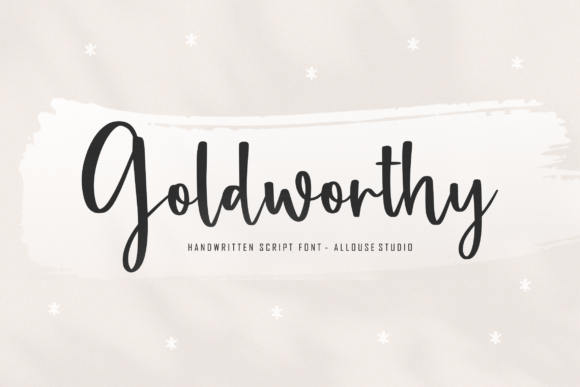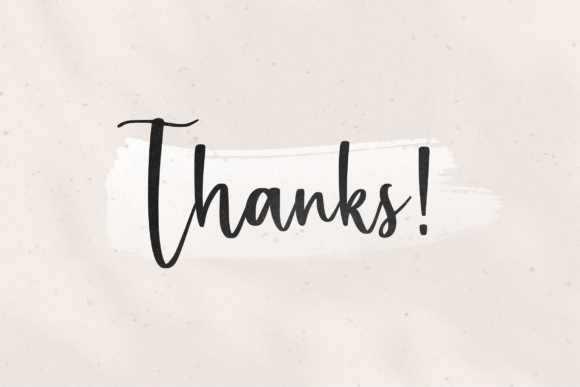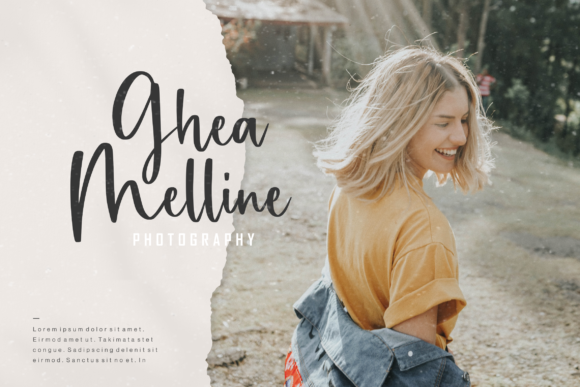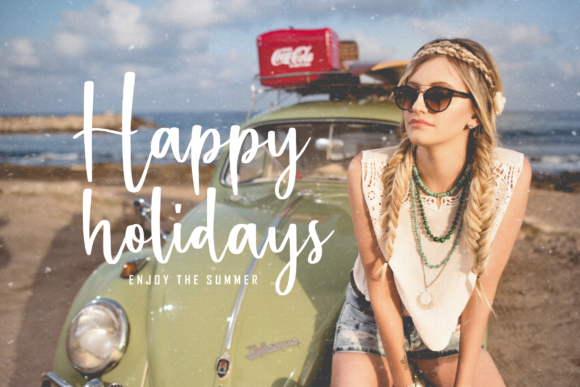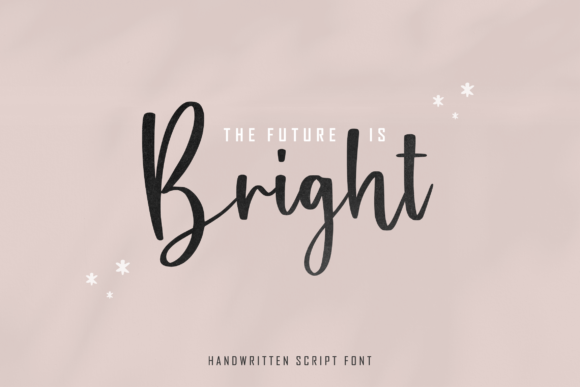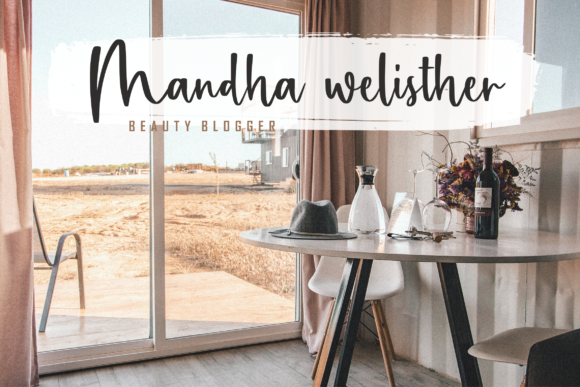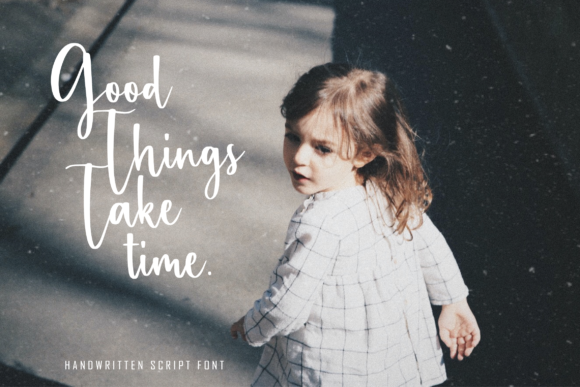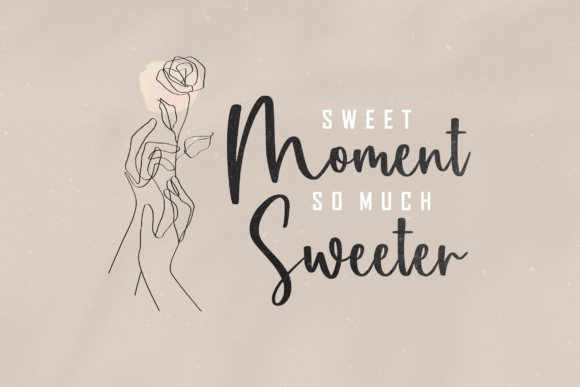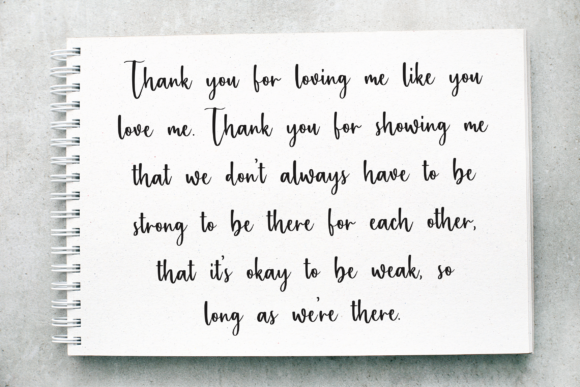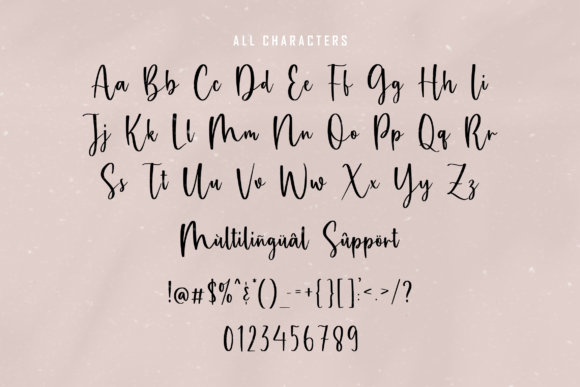
Goldworthy Font
**Goldsworthy** makes a statement as a modern handwritten script font, offering a natural, stylish, and versatile touch to any extraordinary project. Whether gracing wedding invitations, thank you cards, quotes, greeting cards, logos, business cards, or any design requiring a customized and distinctive feel, Goldsworthy brings a contemporary handwritten charm.
The natural and stylish appearance of Goldsworthy is a standout feature. Each character is crafted with a sense of authenticity, creating a font that feels both contemporary and approachable. This makes Goldsworthy well-suited for projects that aim to convey a modern and personalized aesthetic.
The versatility of Goldsworthy allows it to shine across a range of applications. From wedding invitations to thank you cards and logos, this font adapts seamlessly to various design contexts, adding a customized touch to each project. Its ability to enhance both formal and creative elements makes it a valuable asset for diverse creative endeavors.
The modern handwritten feel of Goldsworthy contributes to its uniqueness, making it a distinctive choice for projects that prioritize individuality. Whether applied to business cards or any design in need of a personalized touch, Goldsworthy stands ready to elevate your creations with its contemporary and handwritten style.
In essence, Goldsworthy transcends being just a font; it becomes a design companion that effortlessly combines natural elegance with modern appeal. Embrace the versatility and personalized charm that Goldsworthy brings to your extraordinary projects, making each design a reflection of contemporary sophistication and individuality.